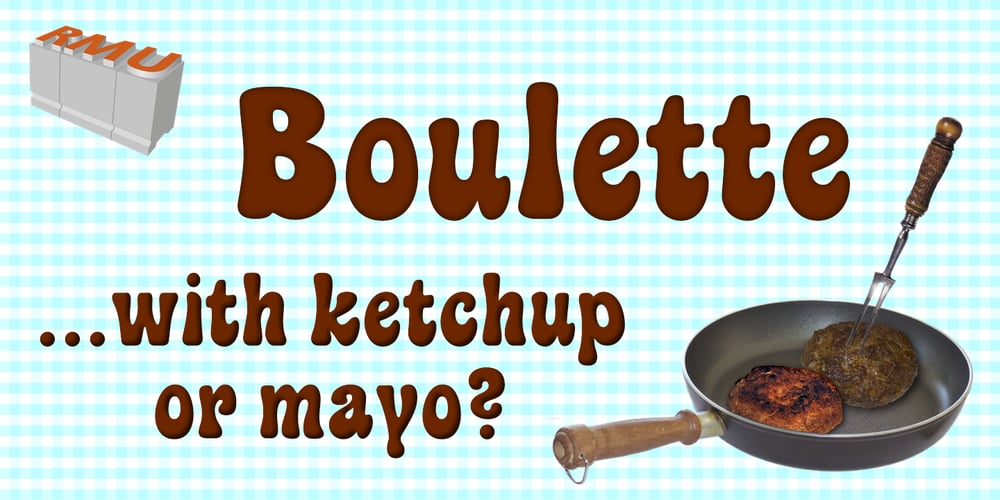
Boulette Font Family was designed by Ralph M. Unger and published by RMU. Boulette contains 1 styles and family package options. Boulette is a gorgeous pop art-style display font for kids, cartoons, comics and much more.